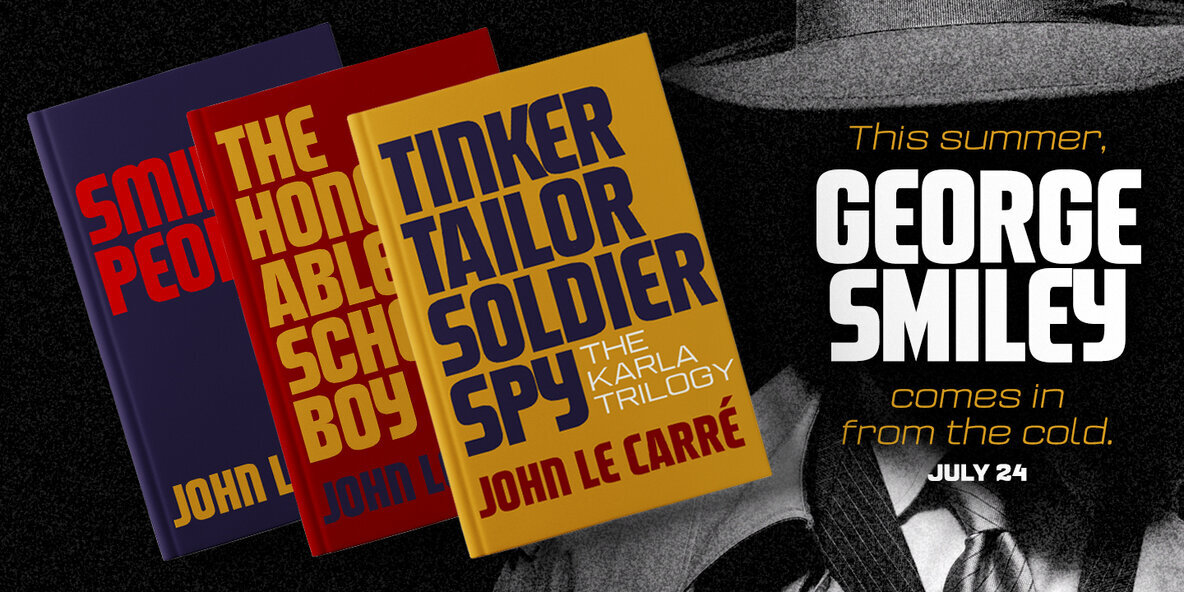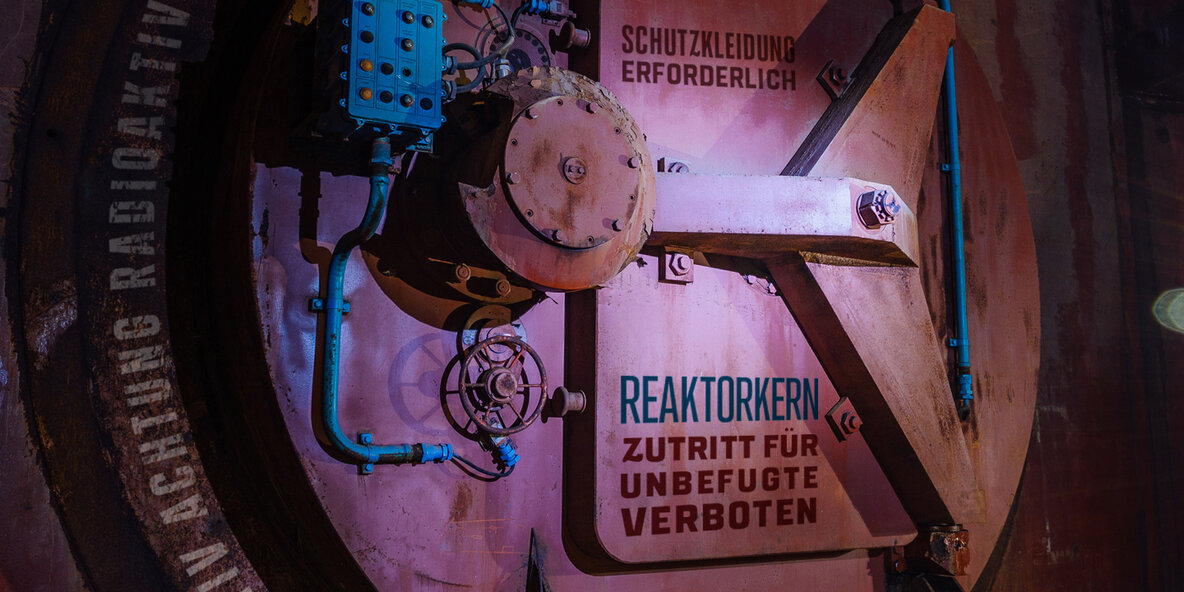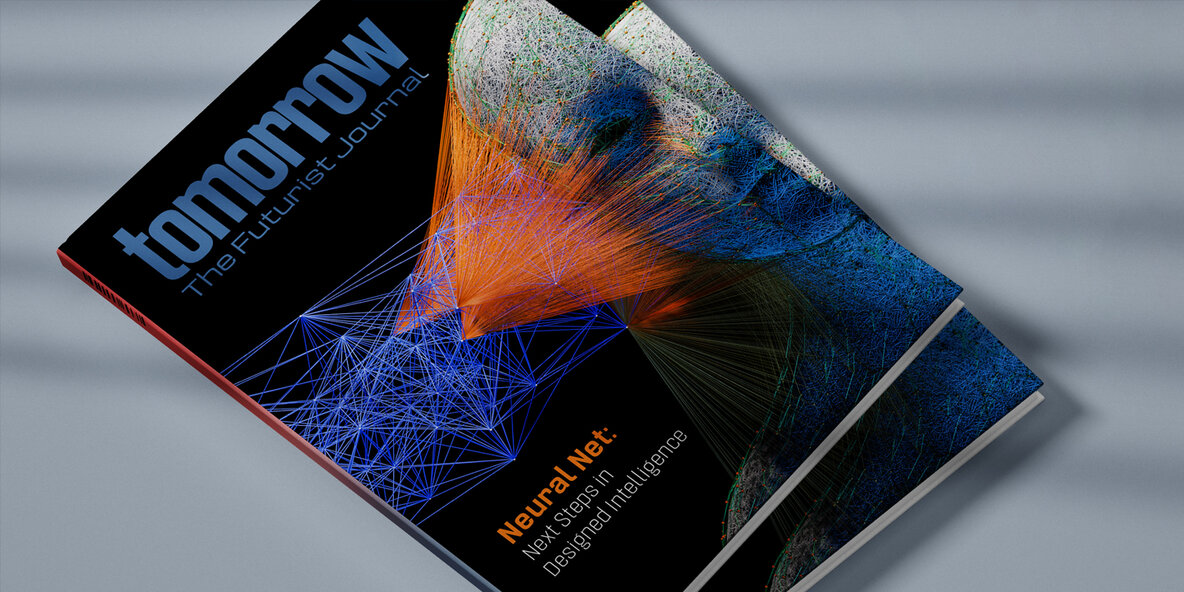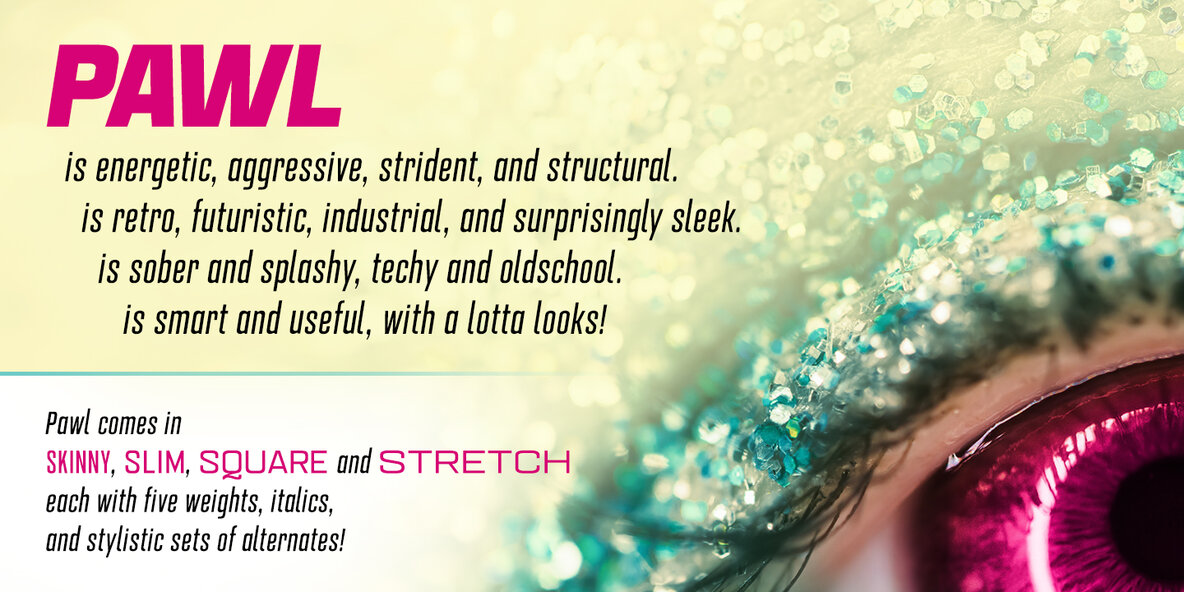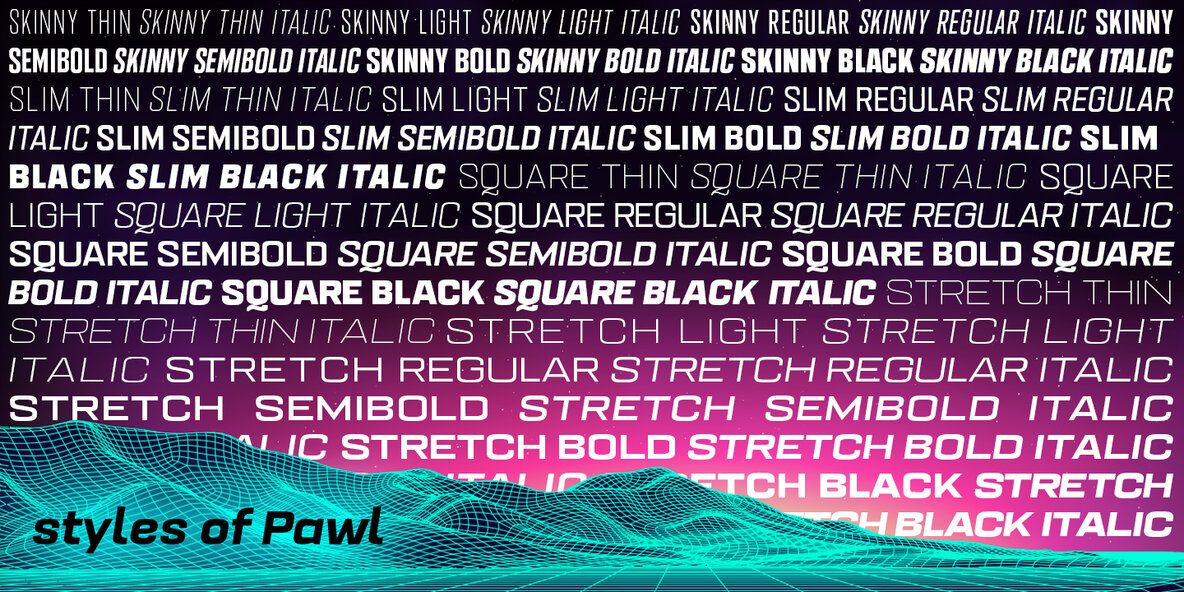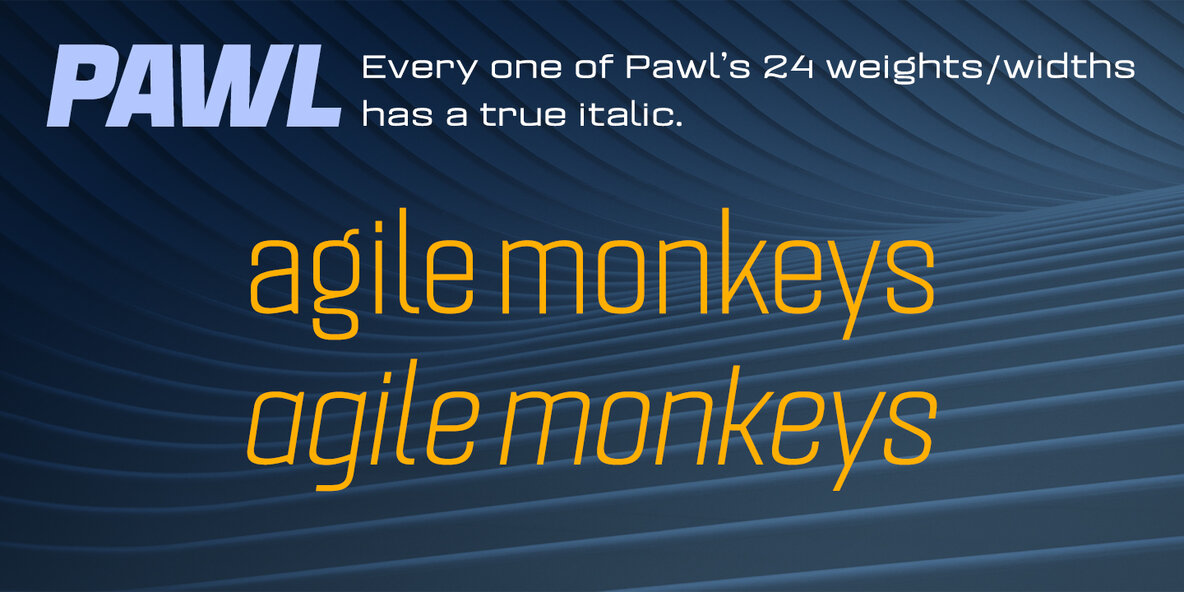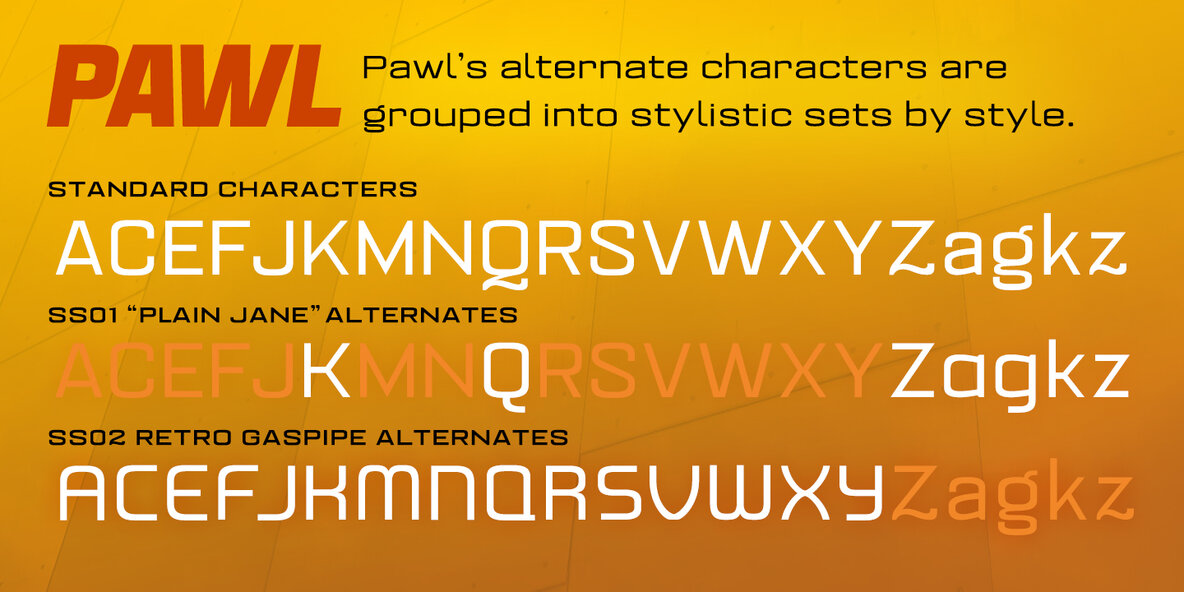
Pawl Font
Meet Pawl, a great 48-font squarish sans family with a little grotesque in him! Oh, you may think you’ve got him pegged at first glance, but he’ll surprise you with his versatility. Pawl lives in the same visual landscape as fantastic modular superfamilies like Eurostile, Agency, Geogrotesque, Barlow, and even the great American Gothics.
Unlike those faces, though, he's nimble enough to switch between looks effortlessly. Pawl is energetic, aggressive, strident, and structural. Depending on how you use him, his voice can be retro, futuristic, industrial, or sleek. He can be sober or splashy, techy or oldschool. Use his alternate characters and stylistic sets to create looks ranging from Streamline Moderne to Futurism to Brutalism to Swiss. He works from small paragraphs all the way up to monumental signage. This guy is smart and useful, with a lotta looks!
How many times have you needed multiple weights, styles, and widths for your hierarchy, but standard type families were either shockingly expensive or couldn't deliver? Pawl delivers. Give him a shot!